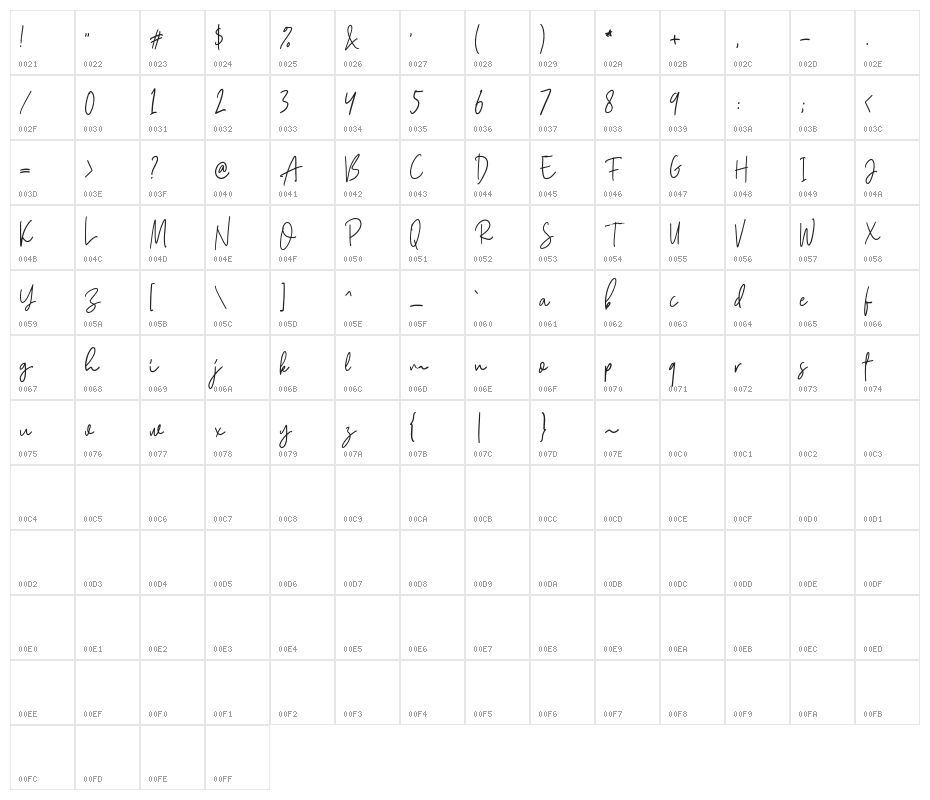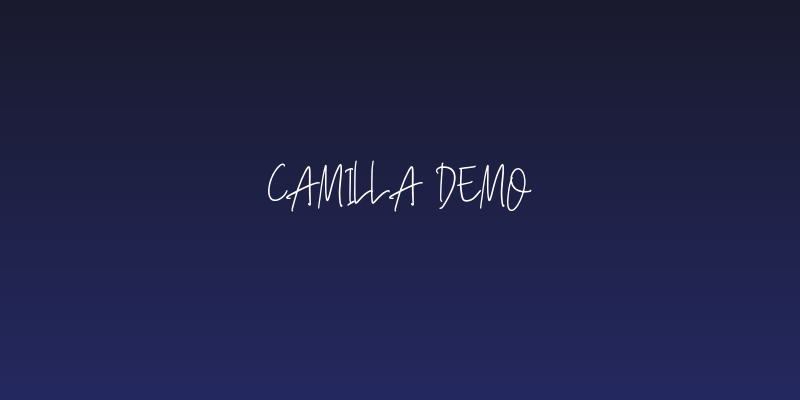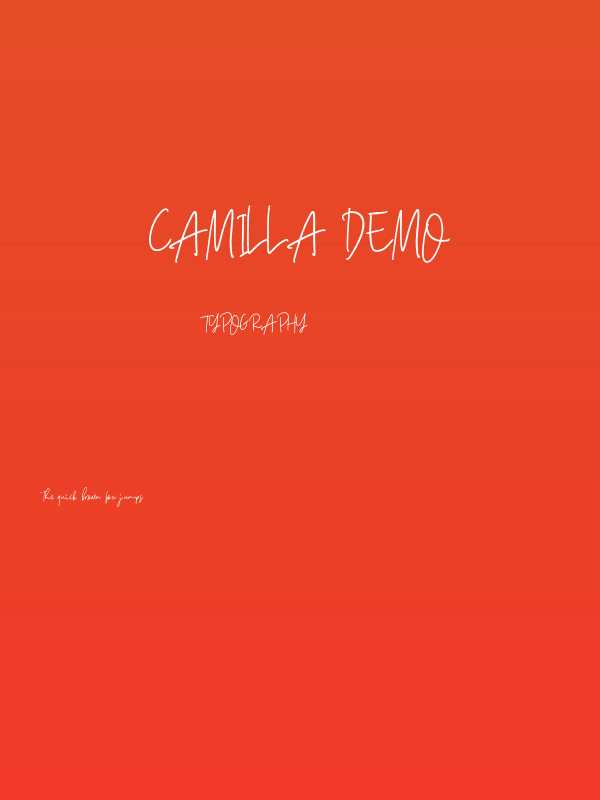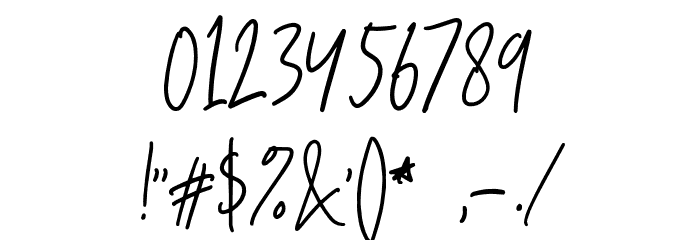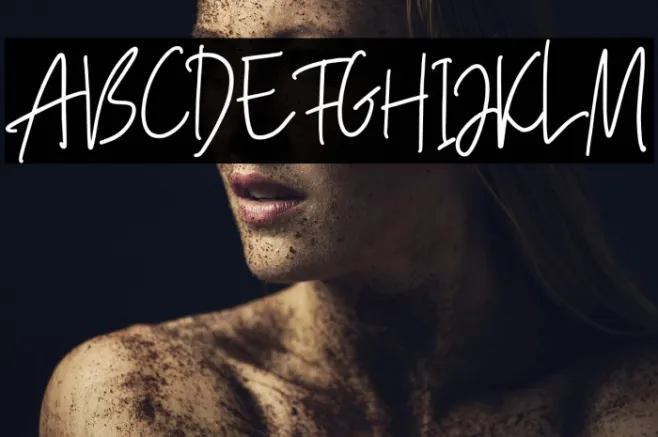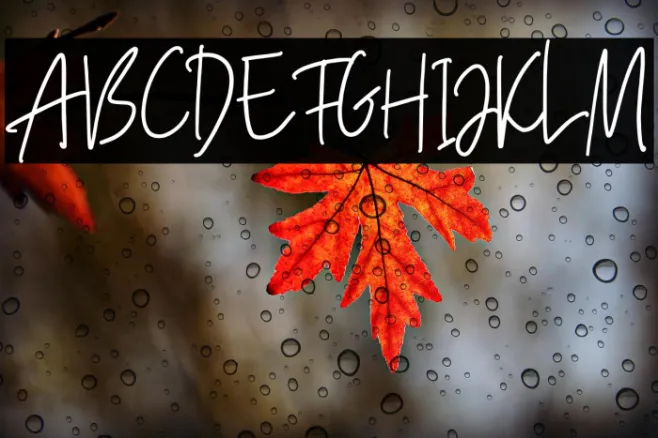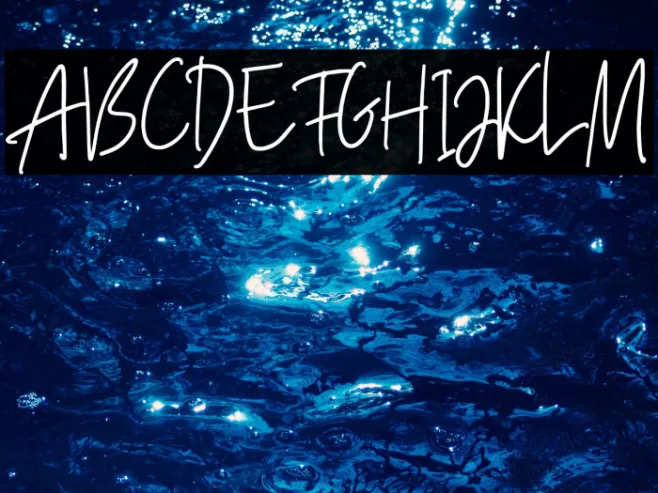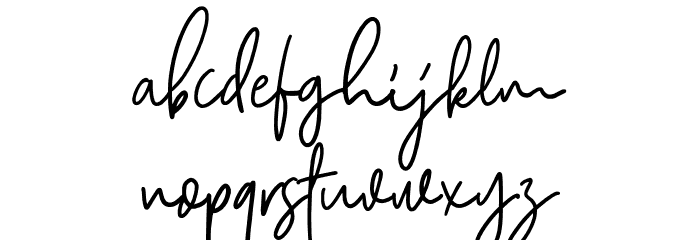
Camilla DEMO Font
Camilla DEMO Description
This font features a handwritten style with a casual and flowing appearance. The letters are slightly slanted, giving it a dynamic and lively feel. The strokes are consistent in width, providing a uniform look across all characters. The uppercase letters are tall and narrow, while the lowercase letters are more rounded and connected, enhancing the script-like quality. Numbers and special characters maintain the same handwritten aesthetic, ensuring cohesion throughout. This font is perfect for projects that require a personal touch or an informal vibe.
| Use Case | Logos, Invitations, Social Media |
| Proposed Projects | Ideal for greeting cards, invitations, personal branding, and social media graphics. |